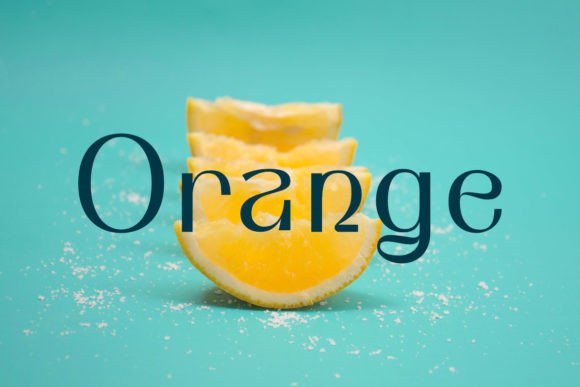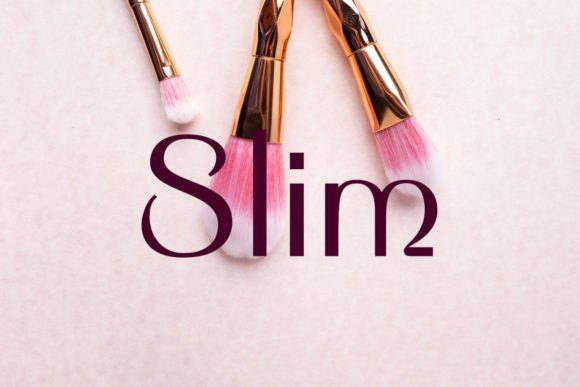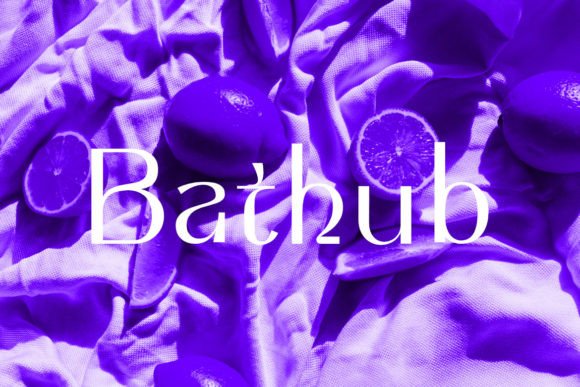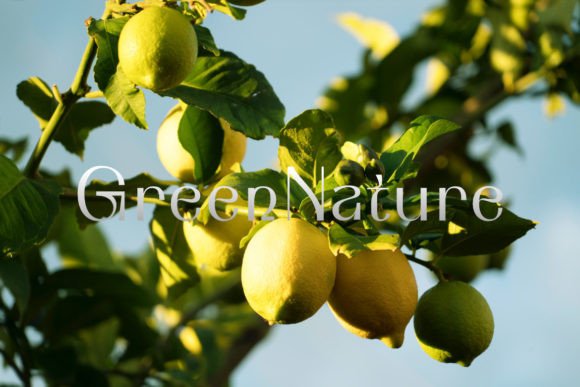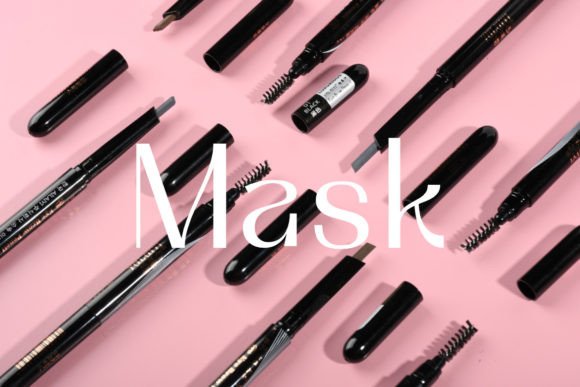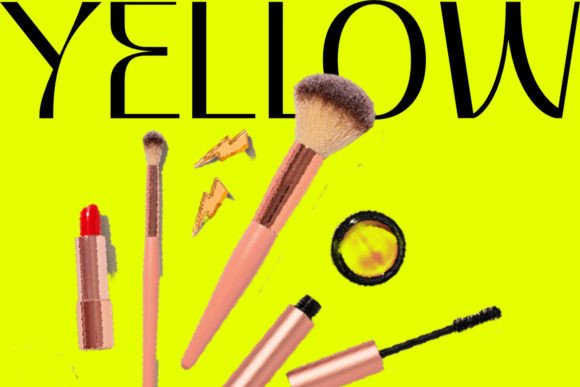
Introduction to Lemonstyle Font Font
Fonts play a crucial role in design, and the Lemonstyle Font font is a typeface that brings both character and versatility to any project. Whether you’re working on a branding project, a website, or a print design, the Lemonstyle Font font offers a unique style that can elevate your work.
Lemonstyle is an exquisite sans-serif font with unexpected twists and accents to create a unique appearance.
This typeface is perfect for high-end beauty products or anything fashion-related .
Key Features of Lemonstyle Font Font
Why Choose Lemonstyle Font Font?
The Lemonstyle Font font is more than just a typeface – it’s a design tool that helps you communicate your message with style and clarity. Its unique character set and versatile design make it suitable for a wide range of applications, from elegant invitations to bold headlines.
With its carefully crafted letterforms and balanced proportions, the Lemonstyle Font font ensures readability and visual appeal across all mediums.
What makes Lemonstyle Font font special?
The Lemonstyle Font font stands out with its unique design, exceptional readability, and versatility across various design applications.